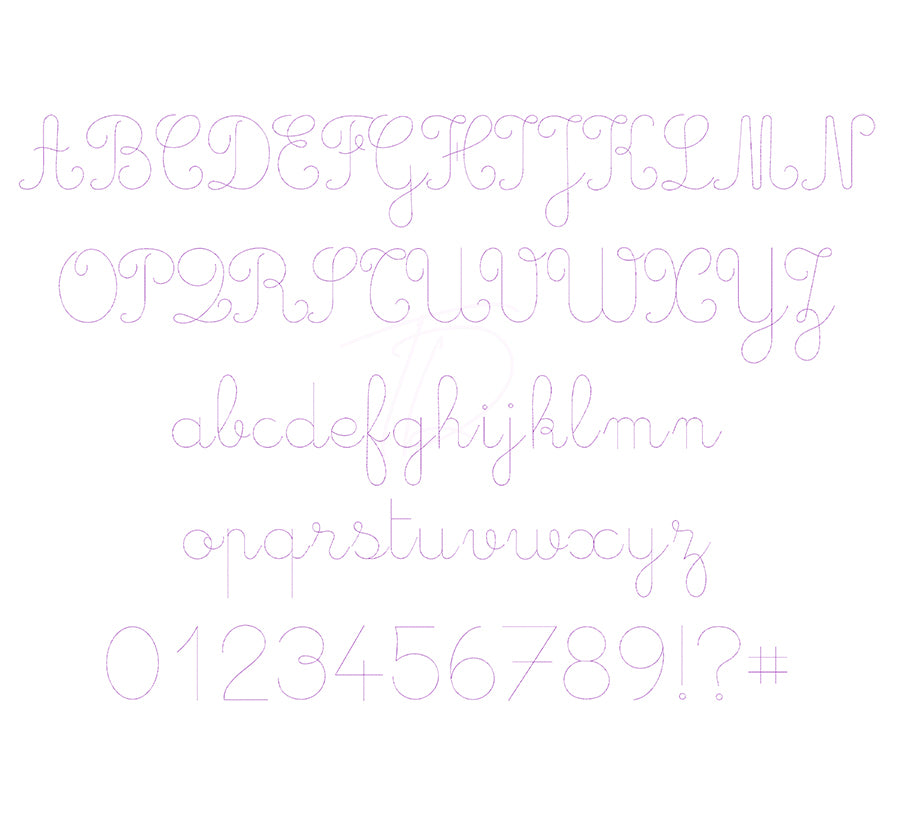
Bean Stitch embroidery digital font. Embroidery alphabet in bean stitch. BX format
Bean Stitch embroidery digital font
This font comes with letters in 3 sizes, A-Z, a-z, 0-9